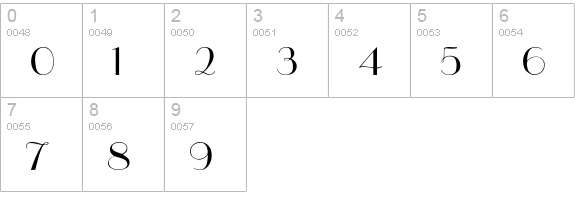
UpperEastSide Font Details
Introducing UpperEastSide font, a timeless and elegant typeface that exudes sophistication and refinement. This exquisite font is the epitome of luxury, capturing the essence of the prestigious Upper East Side neighborhood in New York City. With its clean lines and graceful curves, UpperEastSide font effortlessly combines classic elements with a modern twist, making it the perfect choice for any upscale design project. Whether it's creating elegant invitations, designing high-end logos, or crafting refined branding materials, this font is sure to elevate your work to new heights. The best part? UpperEastSide font is absolutely free! It is available to download at FontsMarket.com, a trusted source for high-quality fonts. Now, you can bring a touch of luxury to your designs without breaking the bank. With a wide range of stylistic alternates and ligatures, UpperEastSide font offers versatility and flexibility, allowing you to customize and personalize your designs to perfection. It boasts a comprehensive character set, including uppercase, lowercase, numerals, punctuation, and multilingual support, ensuring that you have all the tools you need to create stunning typographic compositions. Step into the world of UpperEastSide font and experience the elegance and sophistication it brings to your designs. Download it for free at FontsMarket.com and let your creativity soar to new heights. Embrace the allure of the Upper East Side and make a statement with this remarkable font.